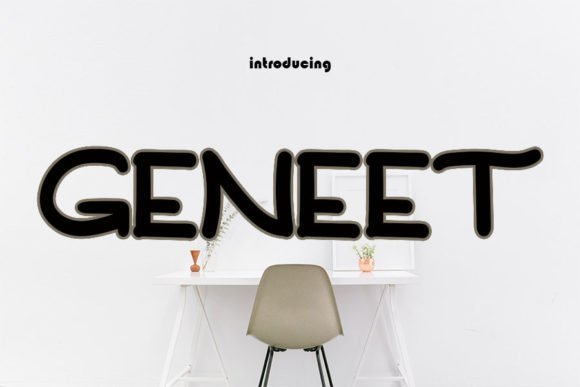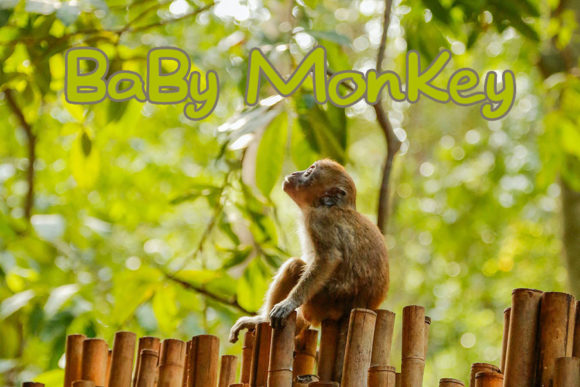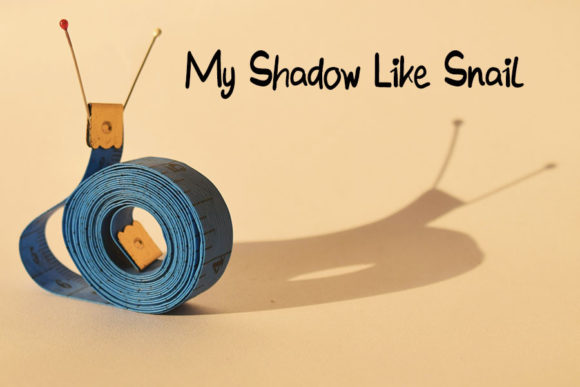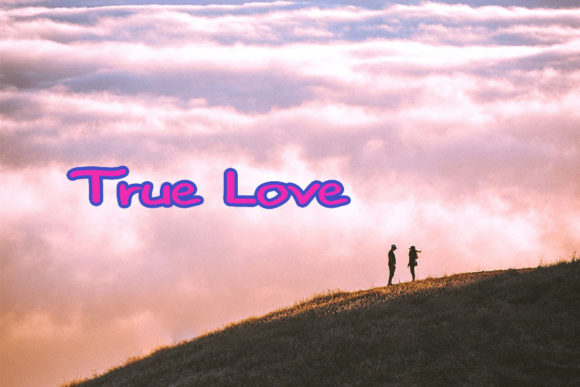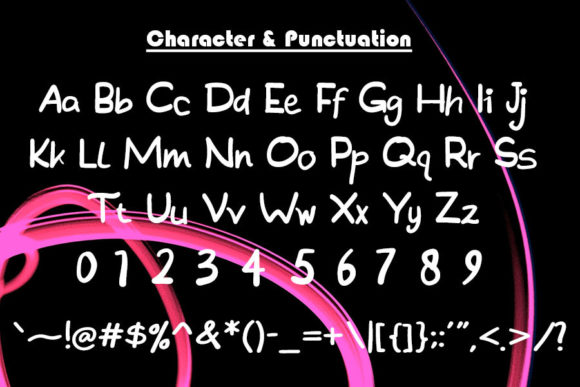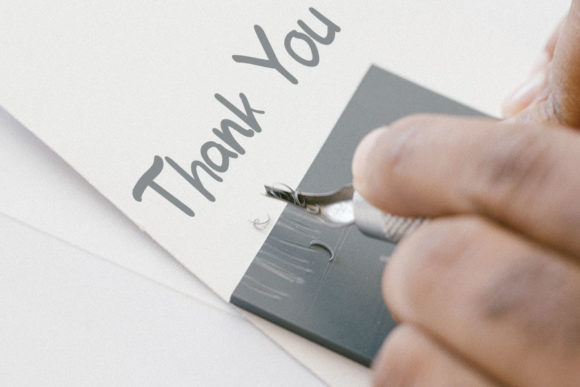
Unlock the Full Potential of Your Designs with Geneet Font
Have you ever stared at a blank canvas, eager to bring a fresh idea to life? The thrill of creating something new is exhilarating, but it’s the perfect font that can make all the difference. That’s where Geneet Font comes in – a simple and sharp display font designed to inspire your works.
Geneet Font is more than just a typeface; it’s a tool to elevate your designs and leave a lasting impression. Its clean lines and modern aesthetic make it the perfect addition to any project, from logos to advertisements. Whether you’re a seasoned designer or just starting out, Geneet Font is a valuable asset that can take your work to the next level.
Geneet Font Key Features
- Font Family: Geneet Font is a sans-serif typeface designed for digital use, offering a clean and modern look.
- Character Set: Supports a wide range of languages, including Latin, Cyrillic, and Greek alphabets, making it suitable for global applications.
- Unique Characteristics: Features a distinctive x-height, carefully crafted for readability and aesthetic appeal, making it an excellent choice for body text and headlines.
Geneet Font Review
Overall, Geneet Font has some great features that caught my attention. ✨ The elegant, modern design makes it perfect for a wide range of applications, from print materials to digital interfaces. The font’s sleek lines and balanced proportions give it a sophisticated feel that’s hard to resist.
One of the things that stands out about Geneet Font is its versatility. ✨ It comes in a range of weights and styles, making it easy to use in different contexts. Whether you’re looking for a clean and simple font for body text or a bold and eye-catching font for headings, Geneet Font has got you covered.
While Geneet Font is a great addition to any designer’s toolkit, there are a few limitations to be aware of. ⚠️ For one, the font may not be suitable for very small text sizes, as the lines can become a bit blurry and difficult to read. Additionally, some users may find the font’s simplicity a bit too minimalistic, which can make it difficult to distinguish between different weights and styles.
In conclusion, Geneet Font is a solid choice for designers looking for a modern and versatile font. While it may have some limitations, its elegant design and range of weights and styles make it a great addition to any project. Whether you’re working on a print or digital project, Geneet Font is definitely worth considering.
- Modern and elegant design
- Range of weights and styles
- Perfect for print and digital applications
- Supports a range of languages
Practical Application Guide for Geneet Font
Geneet Font is particularly useful for creating modern and minimalist designs in Canva.
Geneet Font is ideal for creating clean and elegant typography in Adobe Photoshop and Illustrator.
Geneet Font is useful for creating professional-looking presentations and documents in PowerPoint and Word.
Geneet Font is commonly used for:
- Modern and minimalist designs.
- Professional presentations and documents.
- Editorial and publishing materials.
Geneet Font is a versatile and elegant font that can be used in a variety of applications.